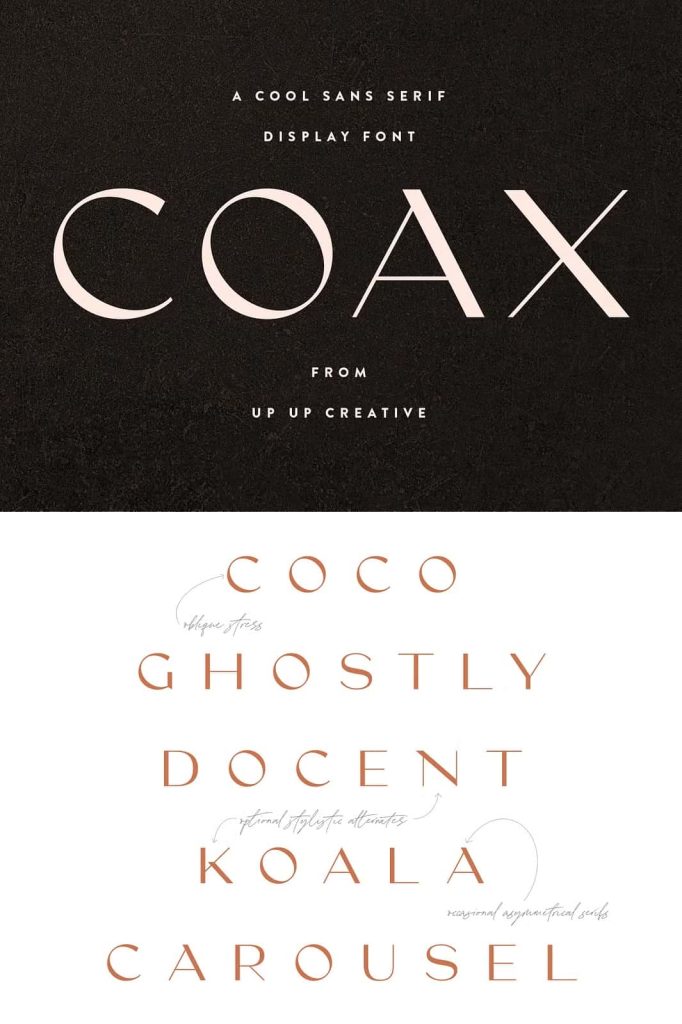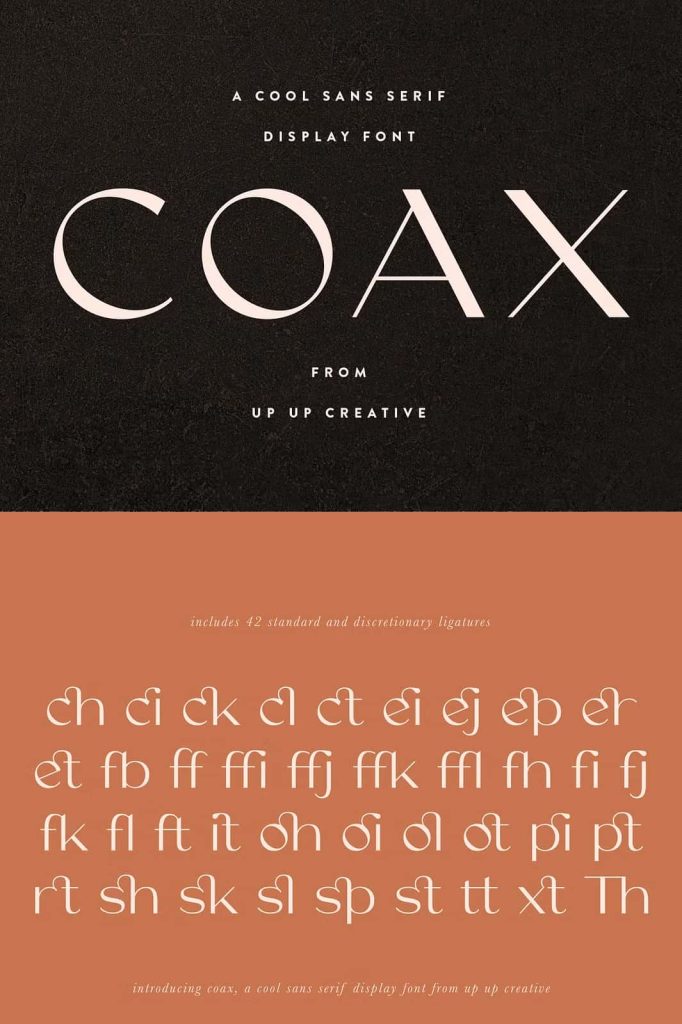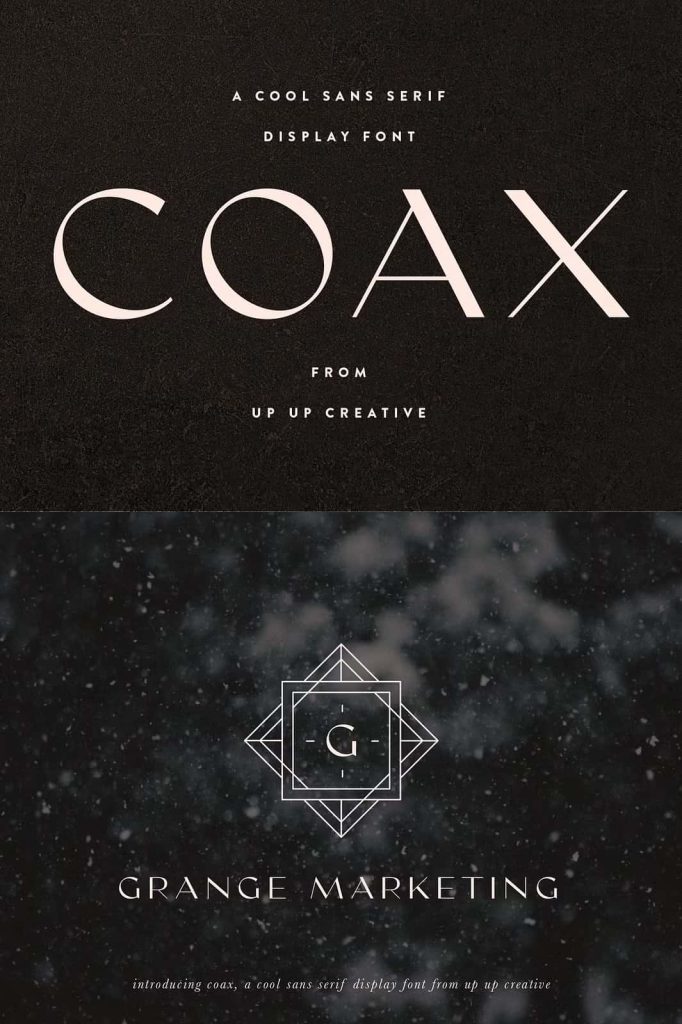
Coax Sans Serif Display Font
Coax is a modern sans serif display font that combines clean contemporary styling with refined design details to create a sophisticated and memorable typeface. While it is primarily a sans serif font, Coax introduces distinctive characteristics such as oblique-stressed rounded letterforms and carefully placed asymmetrical geometric serifs. These unique features give the typeface a premium appearance that immediately attracts attention without sacrificing readability.
Designed for creative professionals who appreciate elegant typography, Coax delivers the perfect balance between minimalism and personality. Its carefully crafted structure allows designers to create bold visual statements while maintaining a polished and professional look. Whether you are building a luxury brand identity or designing eye-catching editorial layouts, Coax provides the versatility needed to elevate your creative work.
Modern Typography with Premium Character
Unlike ordinary display fonts, Coax introduces subtle design elements that make every letter feel intentional and distinctive. The rounded forms soften the overall appearance, while the geometric serif accents create visual contrast that helps individual characters stand out. This thoughtful combination results in a font that feels contemporary, elegant, and highly recognizable.
The oblique stress found in many of its rounded characters adds movement and rhythm throughout your typography. Instead of looking static or mechanical, Coax delivers a natural flow that enhances headlines, titles, and branding materials. These small yet meaningful design choices make the font suitable for projects where visual quality and originality are essential.
Perfect for Branding Projects
Brand identity relies heavily on typography, and Coax offers everything needed to create memorable brand experiences. Its modern appearance communicates confidence, professionalism, and creativity while remaining approachable. Businesses, agencies, and freelance designers can use Coax to establish a distinctive visual identity that stands apart from competitors.
The font performs exceptionally well across various branding materials, including logos, business cards, product packaging, promotional graphics, social media content, website headers, and marketing campaigns. Its premium appearance allows brands to communicate quality while maintaining a clean and contemporary aesthetic.
Ideal Branding Applications
- Luxury brand identities
- Fashion and lifestyle branding
- Cosmetic and beauty packaging
- Technology startups
- Creative agency portfolios
- Restaurant and café branding
- Product packaging
- Corporate visual identities
Create Eye-Catching Editorial Designs
Editorial typography demands fonts that capture attention while supporting excellent readability. Coax accomplishes both goals effortlessly. Its elegant proportions and refined details allow headlines to command attention without overwhelming surrounding content. Magazine covers, book titles, catalogs, brochures, and lookbooks all benefit from the font’s stylish presentation.
Designers can confidently pair Coax with clean body text fonts to create balanced layouts that feel modern and professional. The font naturally establishes visual hierarchy, making it an excellent choice for publications that require impactful typography.
Excellent for Advertising and Marketing
Successful advertising depends on strong visual communication, and typography often serves as the centerpiece of every campaign. Coax helps designers produce memorable advertisements by delivering bold headlines with sophisticated styling. Whether the project appears in print or digital media, the font remains highly effective across different sizes and formats.
From promotional banners and social media graphics to billboard advertisements and online campaigns, Coax maintains its visual impact while reinforcing a premium brand image.
Versatile Across Creative Projects
Although Coax excels in branding and editorial work, its versatility extends far beyond those applications. Designers can incorporate the font into countless creative projects thanks to its balanced construction and stylish personality. Its modern appearance complements both minimalist and expressive design styles, making it a dependable addition to any typography collection.
Recommended Uses
- Large display headlines
- Logo design
- Monograms
- Wedding invitations
- Editorial layouts
- Magazine covers
- Book covers
- Website hero sections
- Presentation titles
- Packaging design
- Poster design
- Creative portfolios
- Advertising campaigns
- Luxury product branding
Professional Quality for Digital and Print
Coax performs beautifully across both digital and printed media. The clean construction ensures excellent clarity on websites, mobile applications, presentations, and social media platforms while maintaining sharp definition in brochures, posters, business cards, and premium print materials.
Coax is a stylish sans serif display font that successfully blends modern minimalism with premium typographic details. Its oblique-stressed rounded forms, asymmetrical geometric serifs, and elegant construction create a distinctive visual identity suitable for a wide range of creative applications. From branding and advertising to editorial design, logos, monograms, headlines, wedding invitations, and premium marketing materials, Coax helps designers produce professional work that captures attention and leaves a lasting impression.